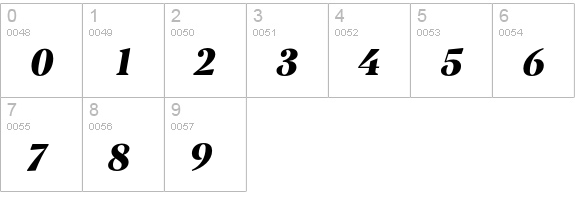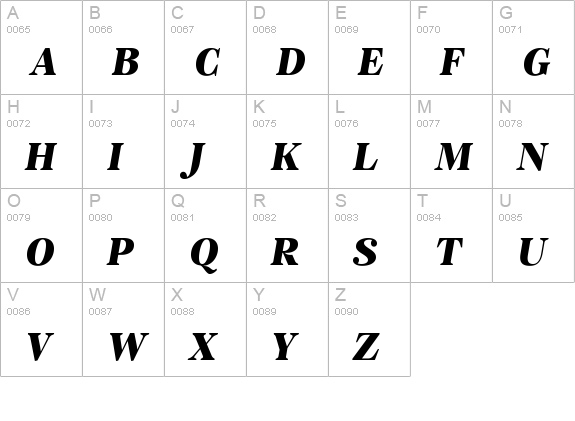
PFRegalTextPro-BlackItalic is a striking and sophisticated font that exudes elegance and style. With its bold and italic design, this font commands attention and adds a touch of luxury to any project. The sleek and modern look of PFRegalTextPro-BlackItalic makes it perfect for high-end designs, editorial layouts, branding, and more. And the best part? PFRegalTextPro-BlackItalic is available for free download at FontsMarket.com. This allows you to easily access and use this stunning font in your creative projects without any cost. Don't miss out on the opportunity to elevate your designs with the timeless beauty of PFRegalTextPro-BlackItalic. Download it now and add a touch of sophistication to your work!